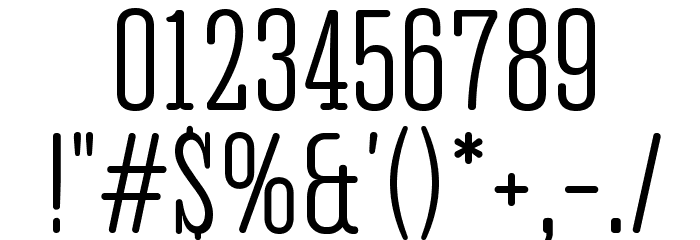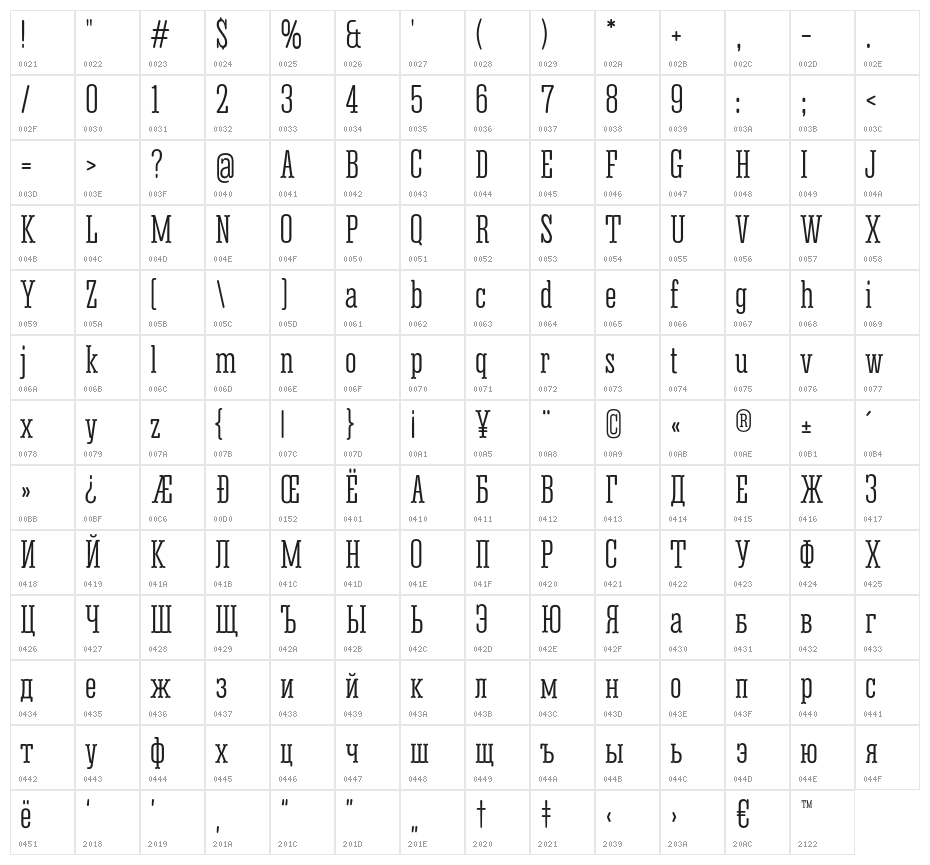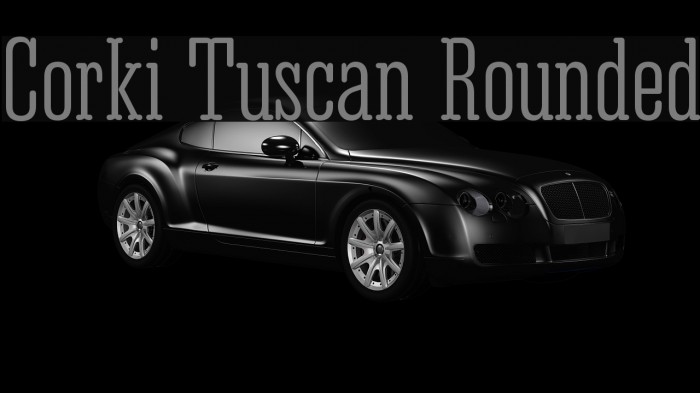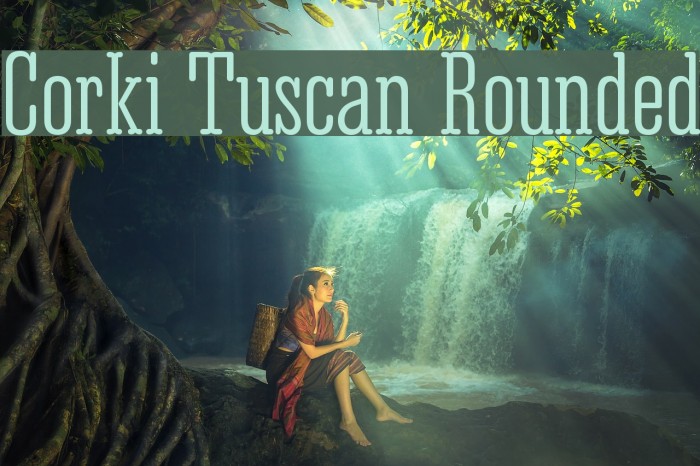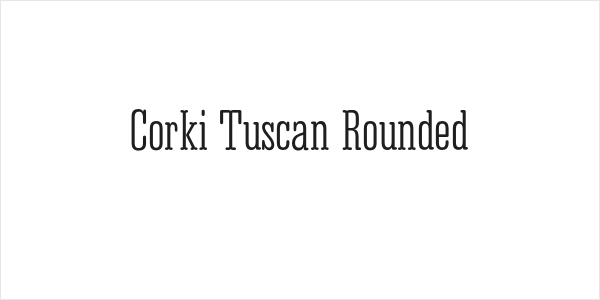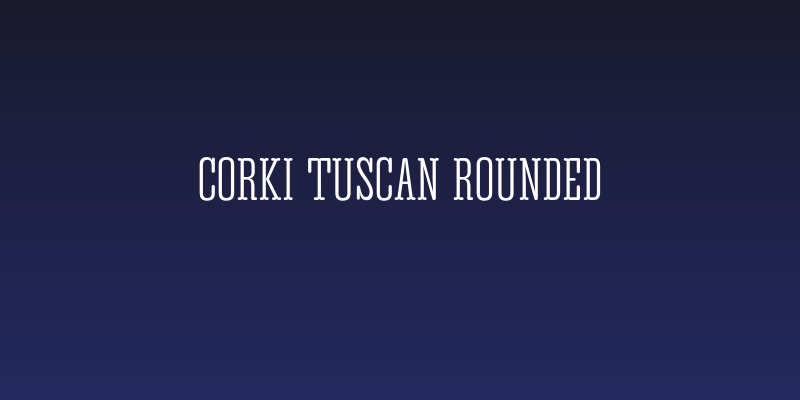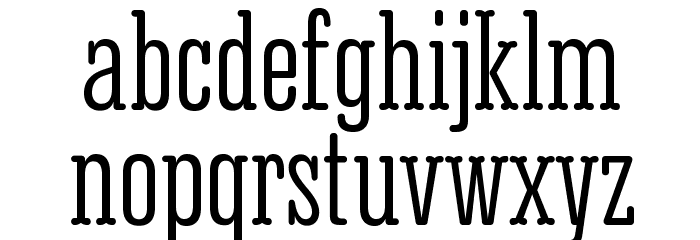
Corki Tuscan Rounded Font
Corki Tuscan Rounded Description
This font features a distinctive blend of classic and modern elements, characterized by its rounded serifs and elongated letterforms. The uppercase letters are bold and commanding, while the lowercase letters maintain a consistent flow with slightly narrower proportions. The numerals are clear and legible, making them suitable for various applications. Special characters are well-integrated, maintaining the overall aesthetic. The font's rounded edges give it a friendly and approachable feel, while the vertical emphasis adds a touch of elegance.
| Proposed Projects | Ideal for branding, packaging, posters, and editorial design where a modern yet classic look is desired. |